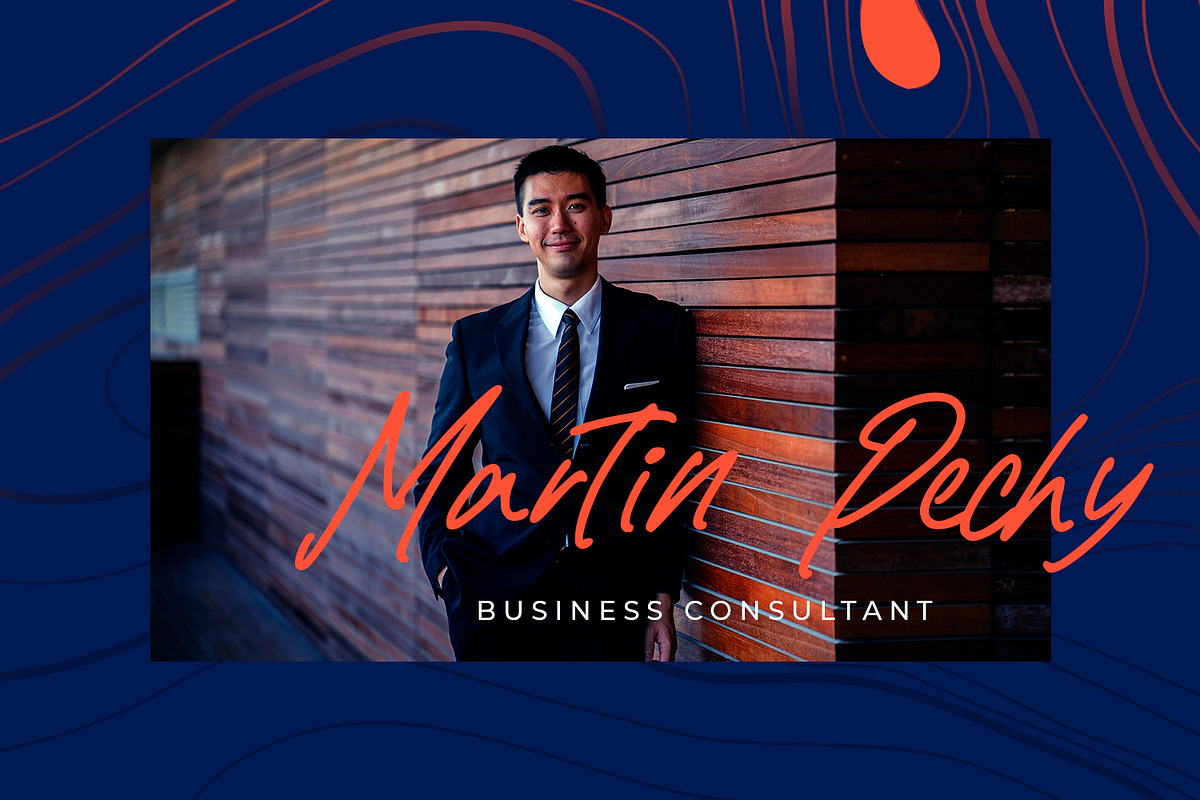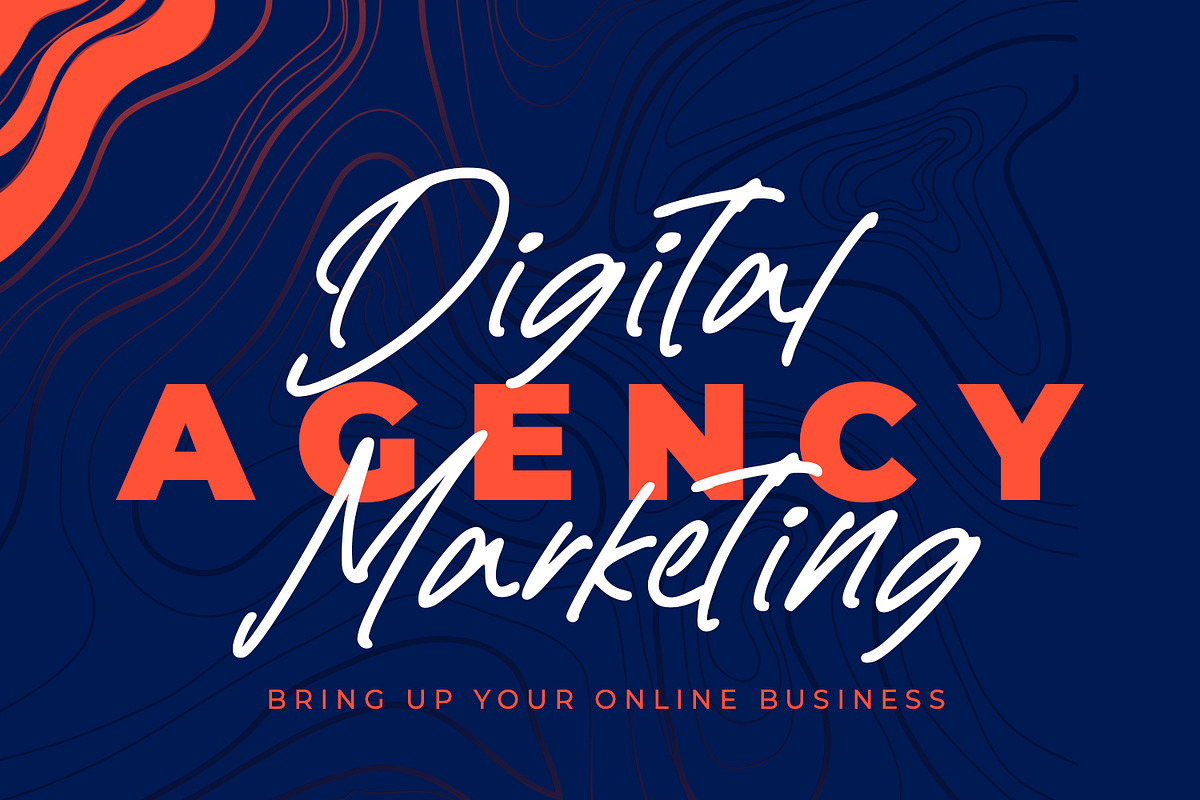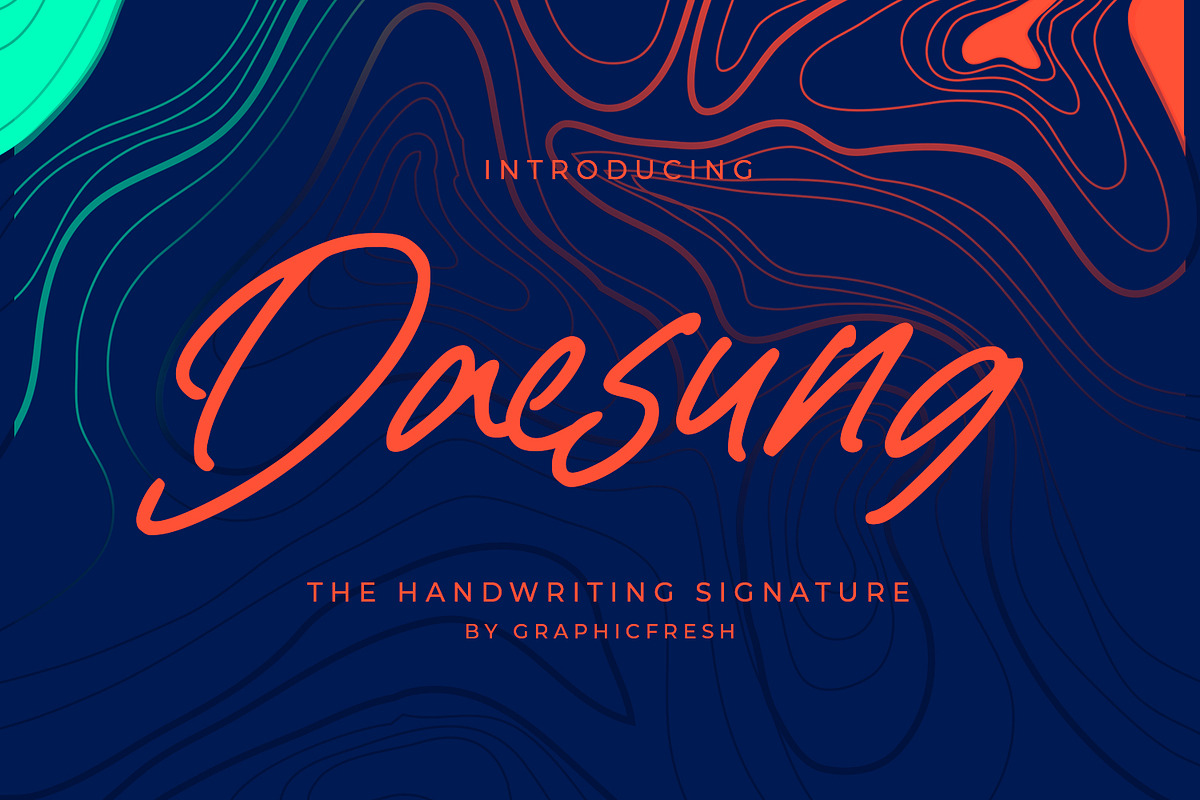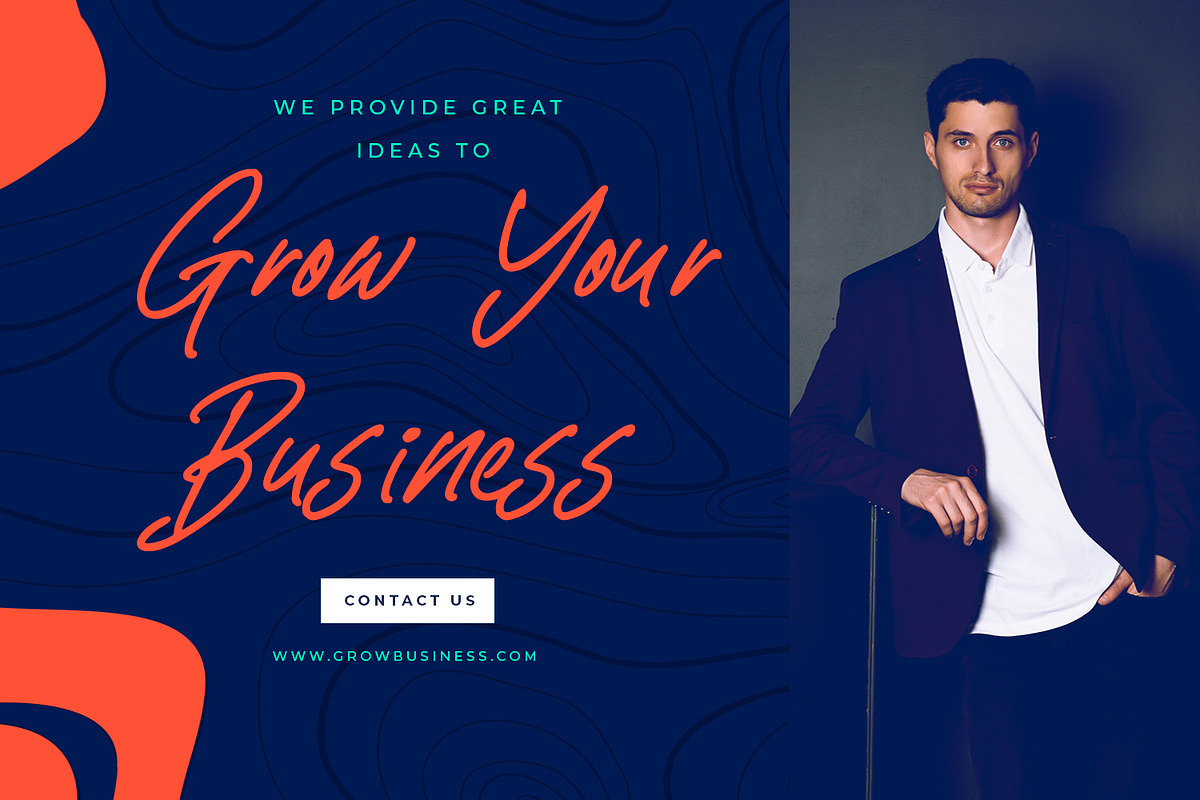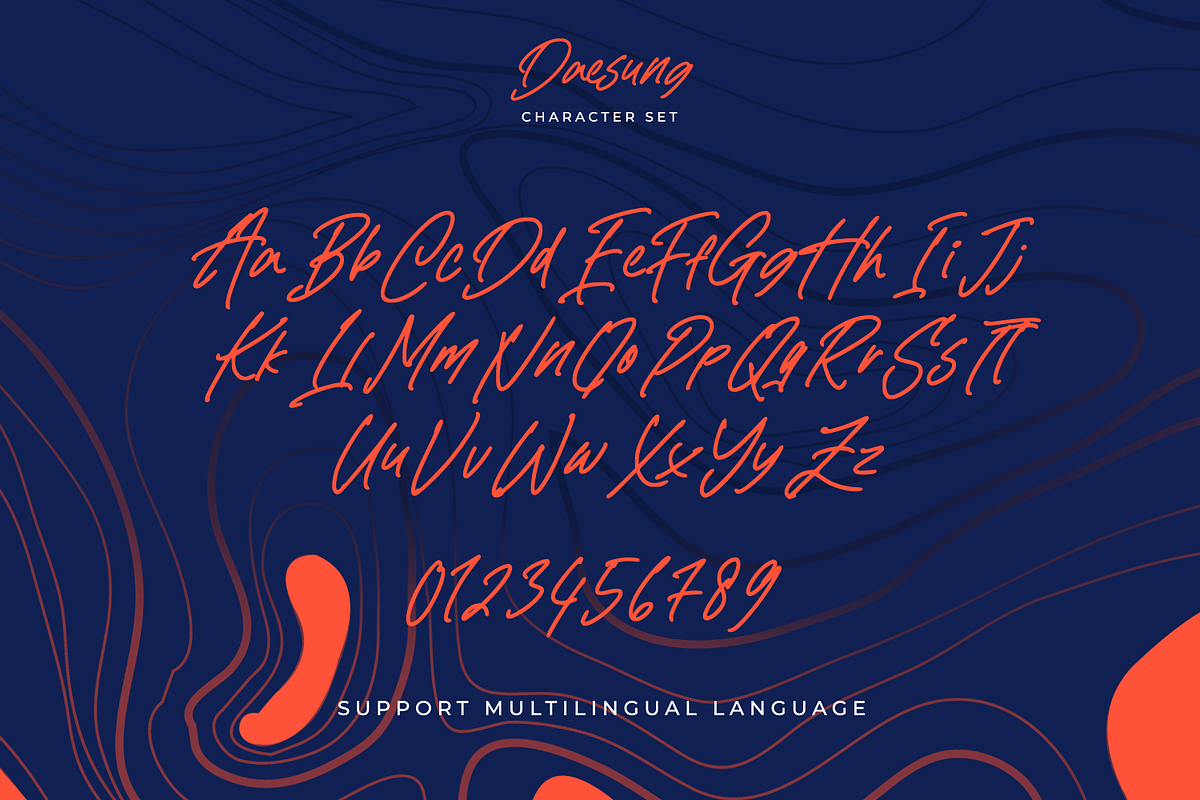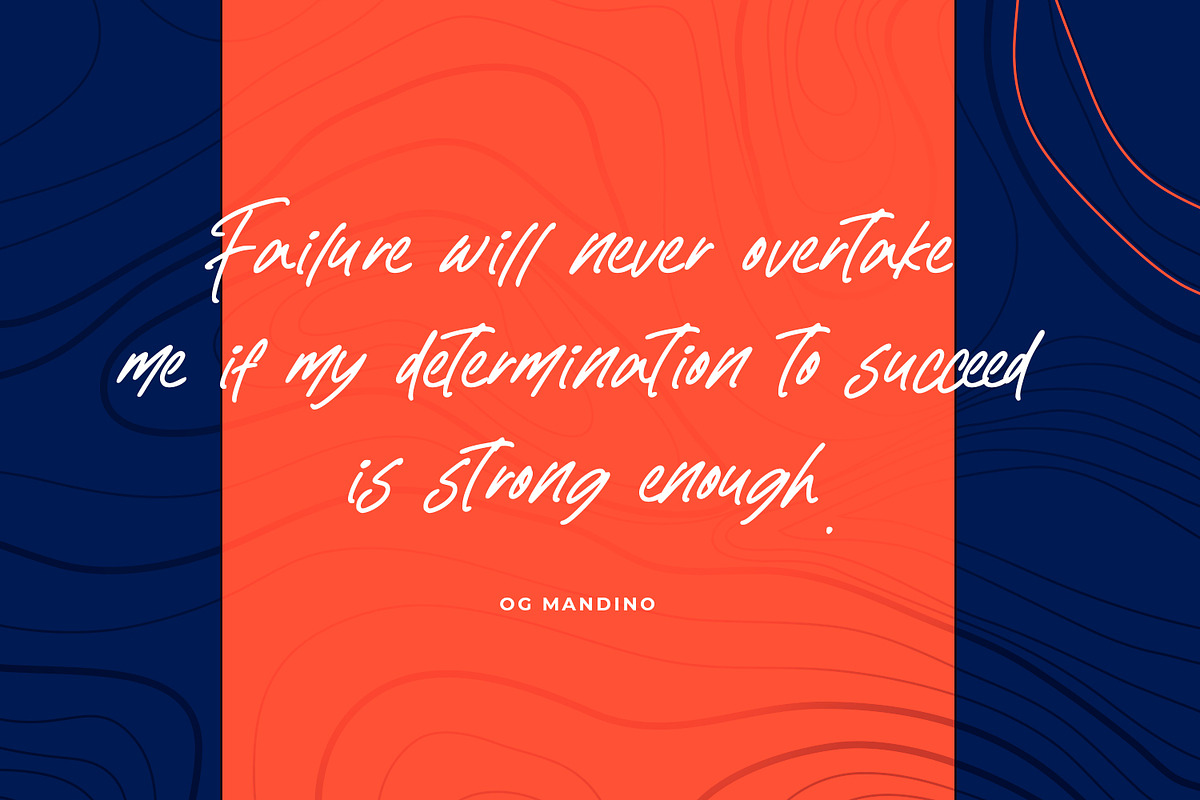
Daesung - The Handwriting Signature
Daesung - The Handwriting Signature. It comes with an elegant and modern style which is perfect to make any design stand out! This font is perfect for branding, wedding invites, magazines, mugs, business cards, quotes, posters, and more.
Daesung Type Features:
- Uppercase -Lowercase
- Suitable for Headlines, Logotypes, Signs, Posters, Letterhead, T-Shirt and many more.
- Support International Language